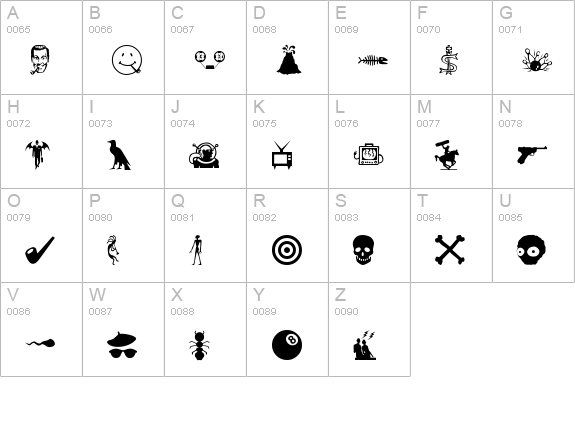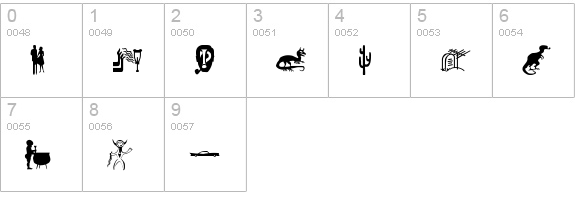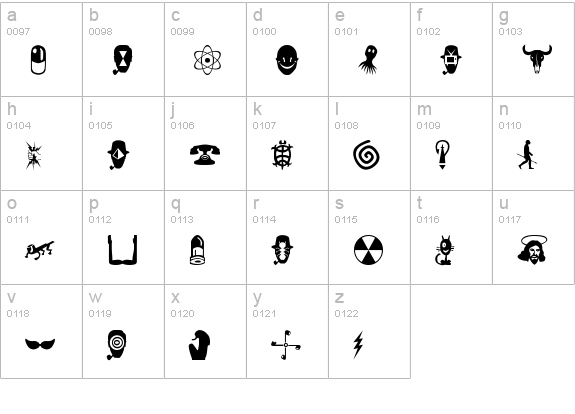
BOBCO 8 Font Details
BOBCO 8 font is a modern and stylish typeface that exudes sophistication and elegance. With its clean lines and sleek design, this font is perfect for a wide range of creative projects, from branding to web design. The unique curves and sharp edges of BOBCO 8 font make it stand out from the crowd, giving your work a professional and polished look. What's even better is that BOBCO 8 font is available for free download at FontsMarket.com. You can easily access this versatile font and use it in your projects without any restrictions. Whether you're a designer, marketer, or content creator, BOBCO 8 font is sure to elevate your work and make a lasting impression. Don't miss out on this amazing opportunity to enhance your projects with the stunning BOBCO 8 font – download it for free today!